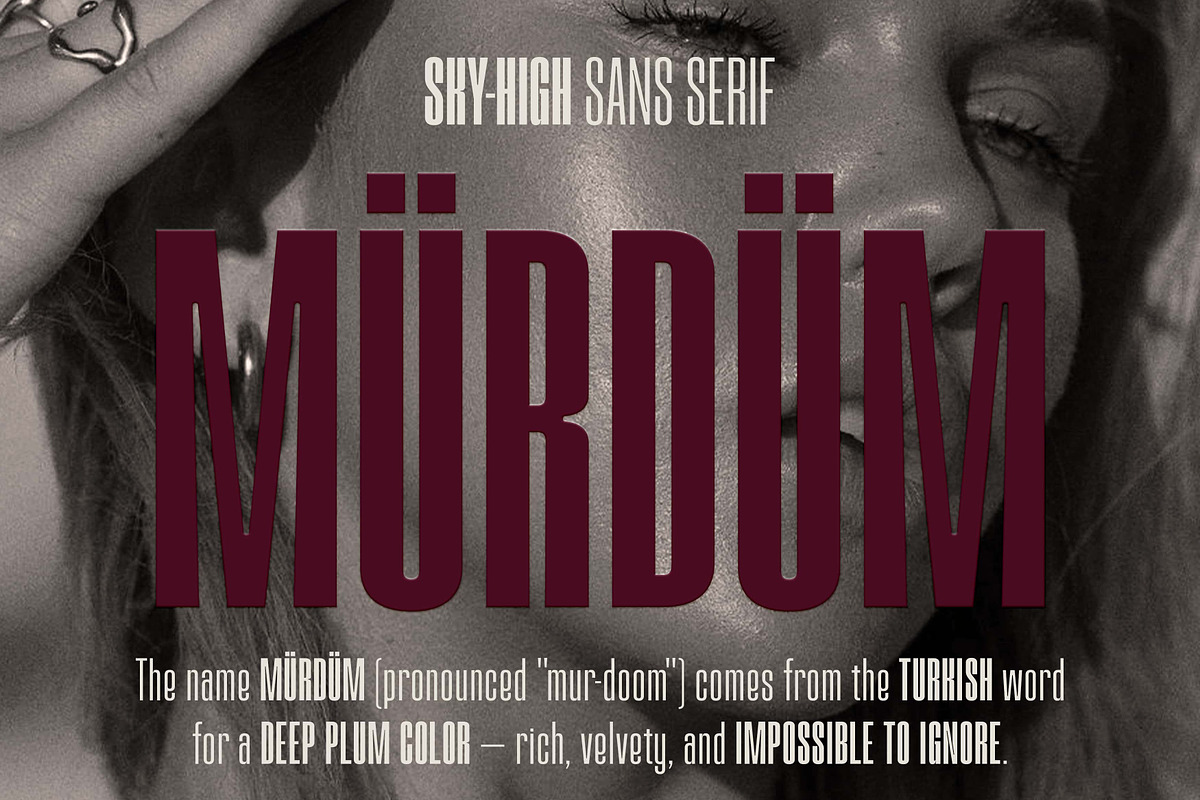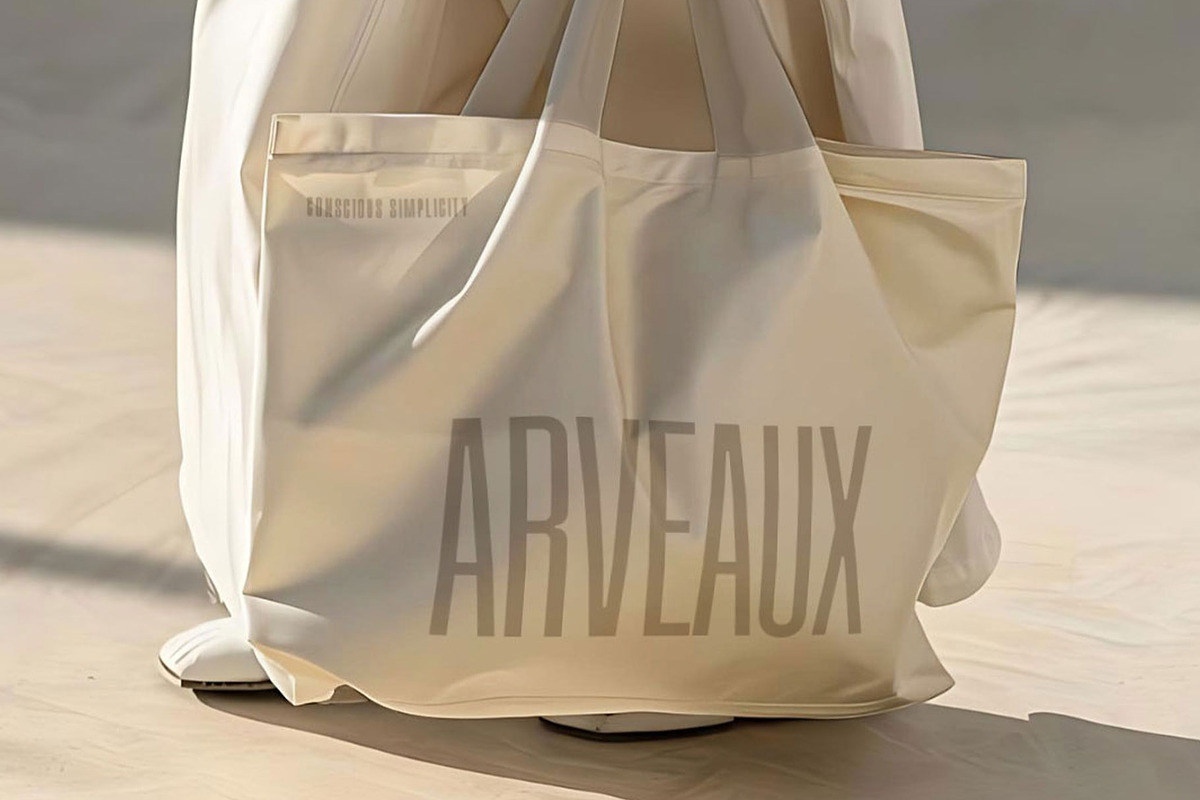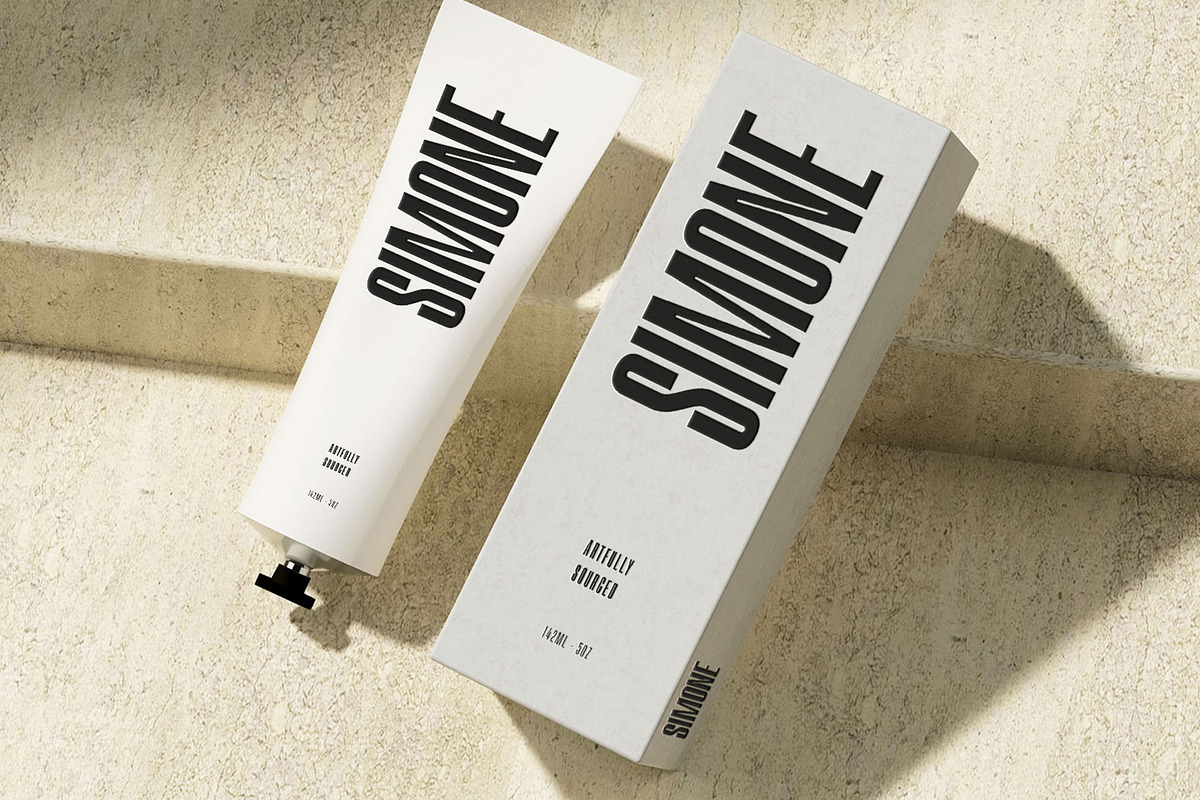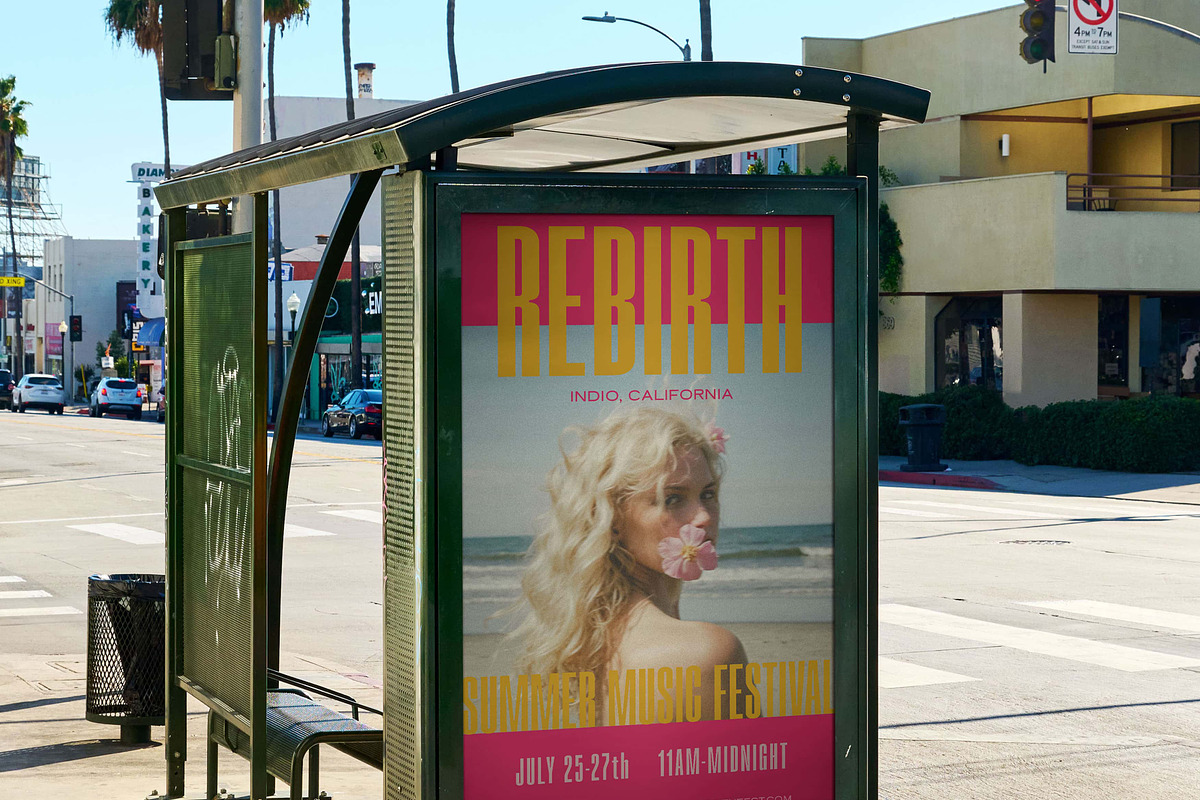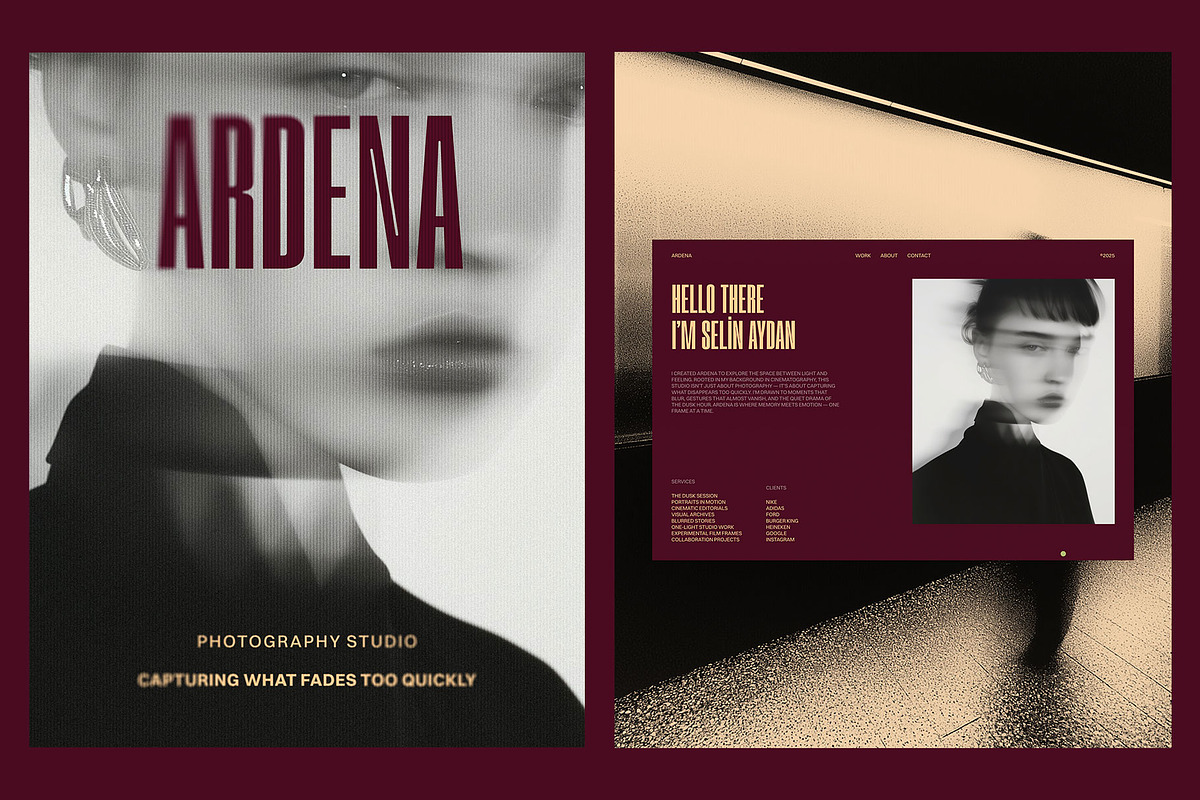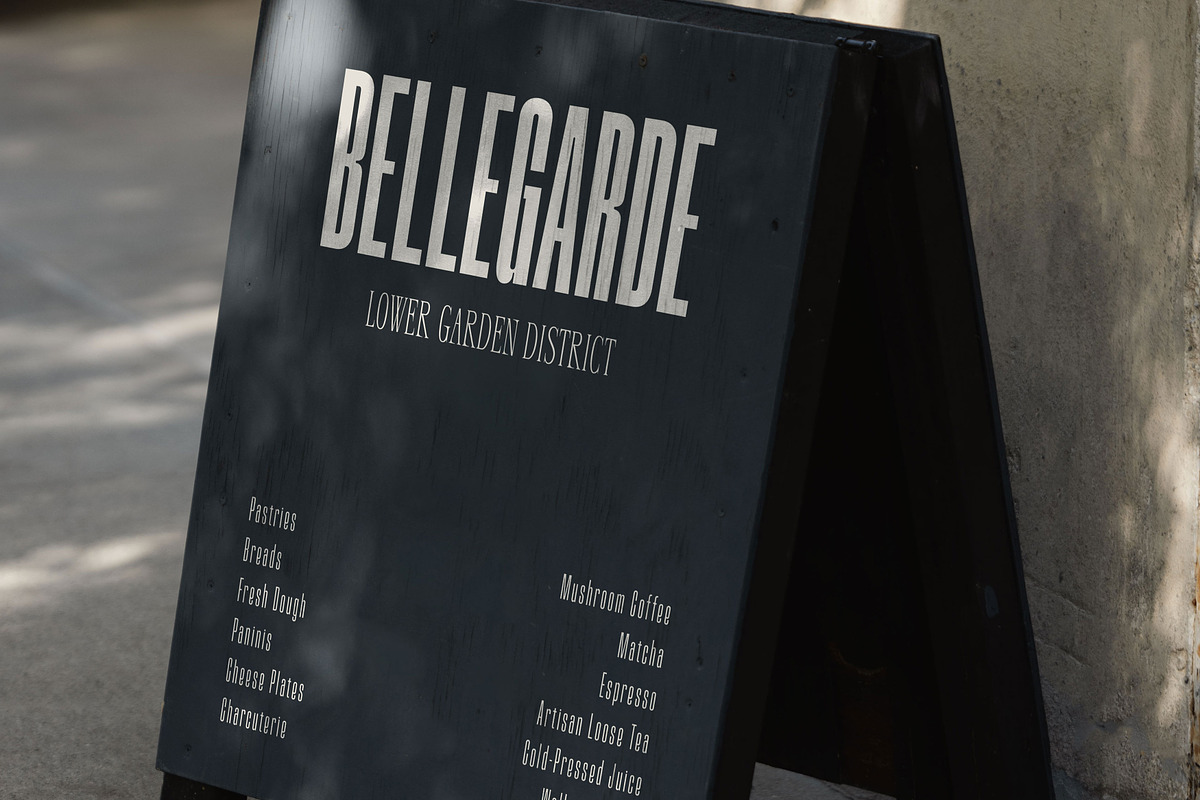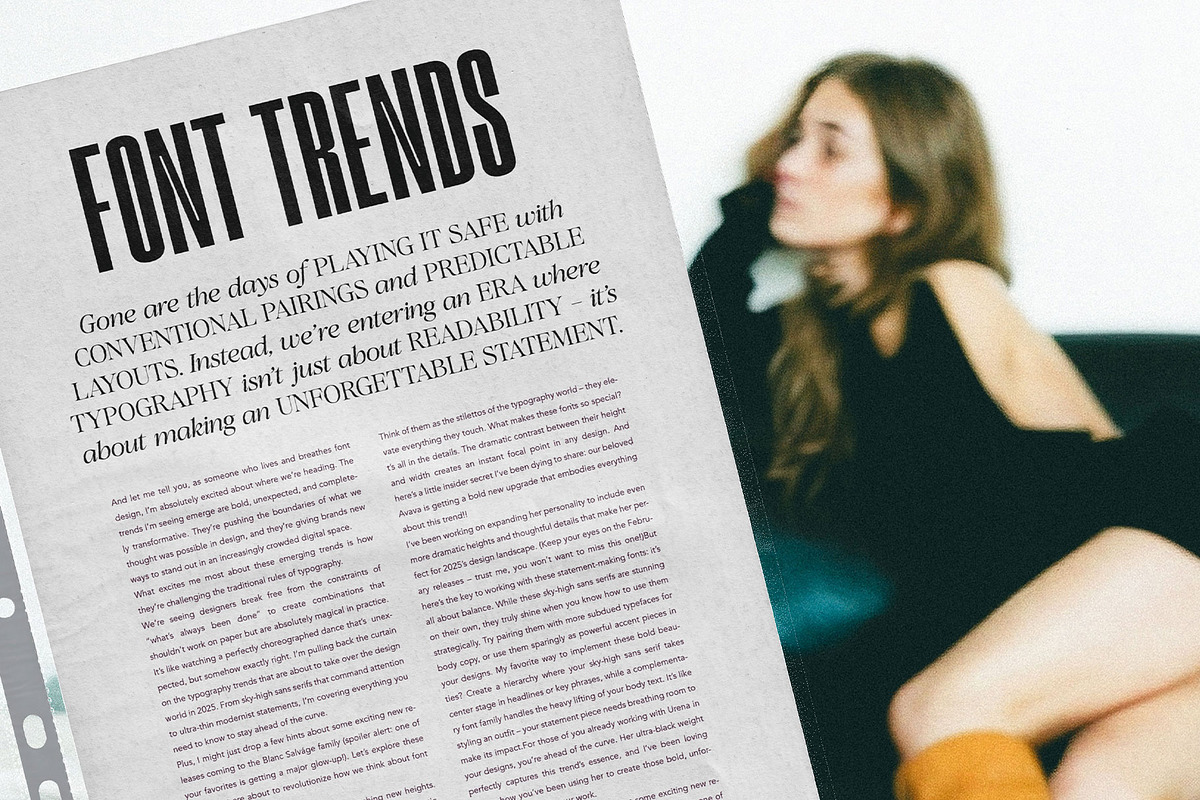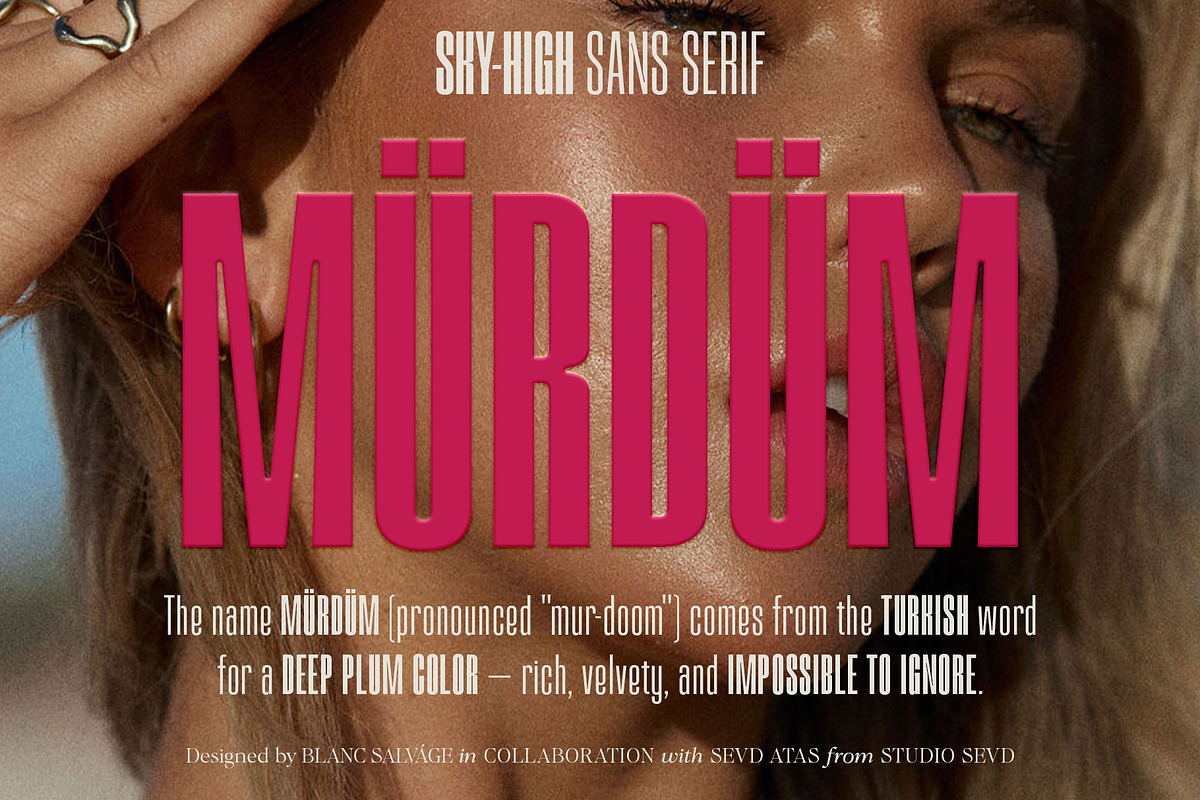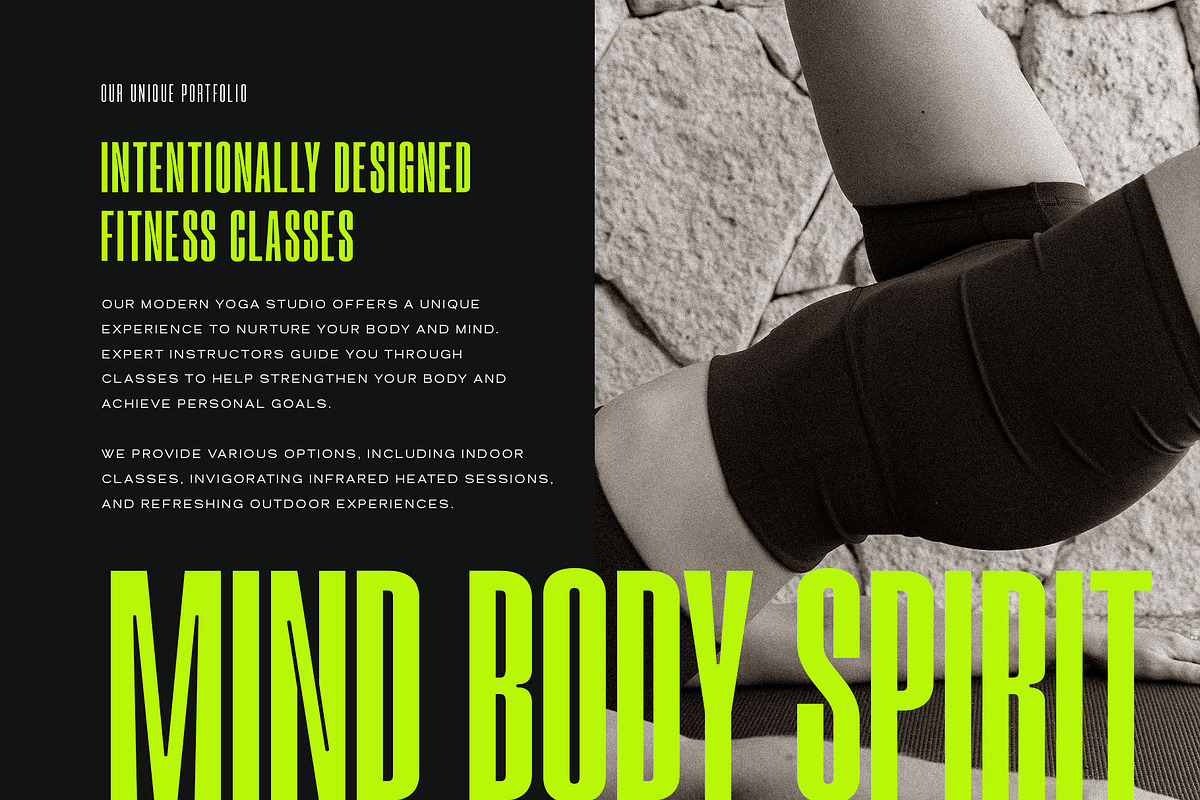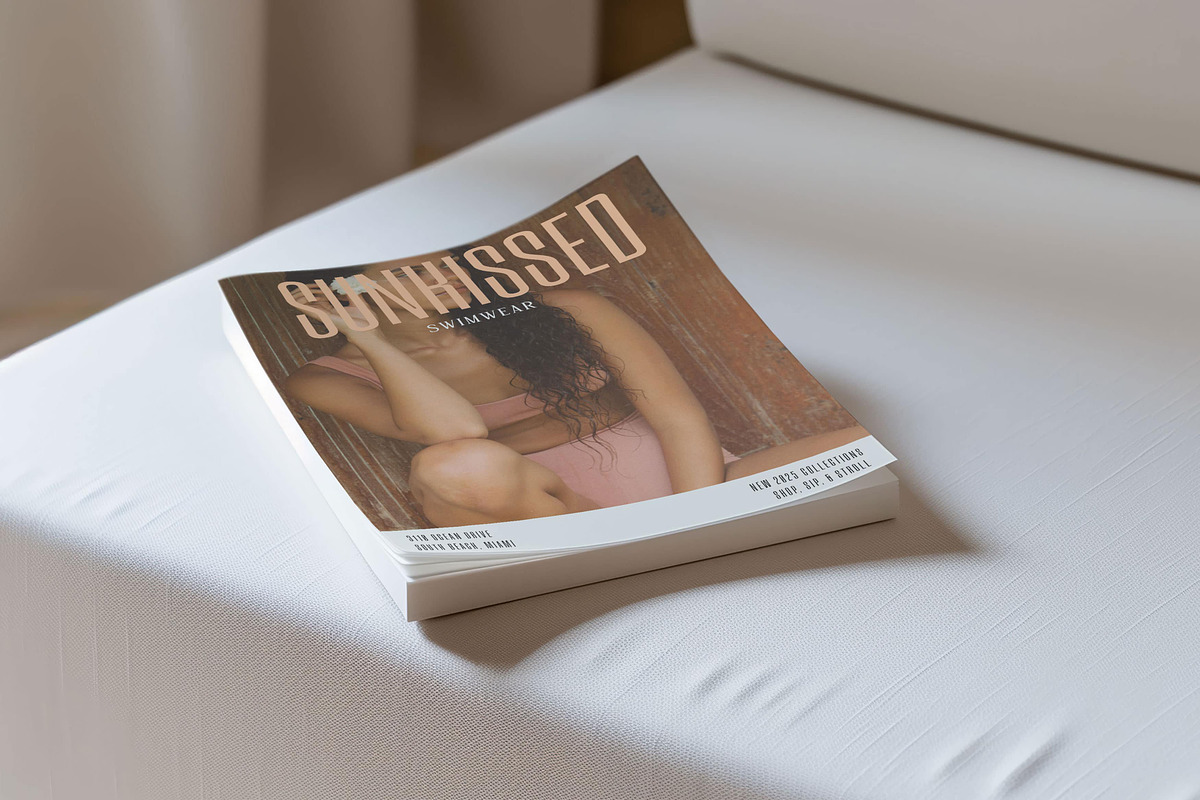
Mürdüm Condensed Sans Serif
This typeface has been living in my heart for months, and I’m beyond thrilled to finally share it with you.
Created in collaboration with the incredible Sevd Atas from Studio Sevd, Mürdüm is a tall, commanding sans serif that makes an immediate impact.
The name Mürdüm (pronounced “mur-doom”) comes from the Turkish word for a deep plum color — rich, velvety, and impossible to ignore. Just like this typeface.
Born from flipping through a Paris Hilton magazine feature (yes, really!), I noticed something missing in the typography world — a condensed sans serif that maintains that feminine edge while still commanding attention. It’s that perfect blend of bold confidence with a touch of elegance that’s surprisingly hard to find.
With two distinctive weights — light and regular — Mürdüm transforms from elegant minimalism to bold statement-making with a single click. The contrast gives you ultimate versatility for any project that demands attention while keeping that feminine flair intact.